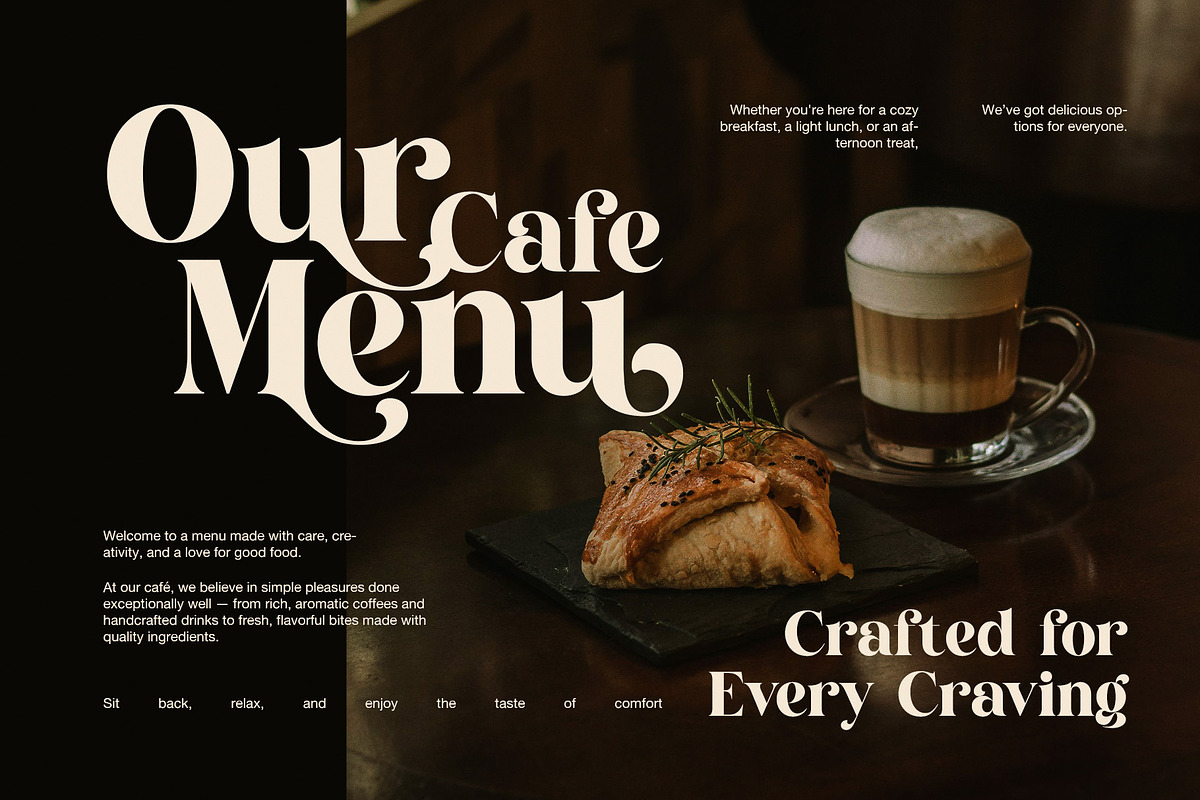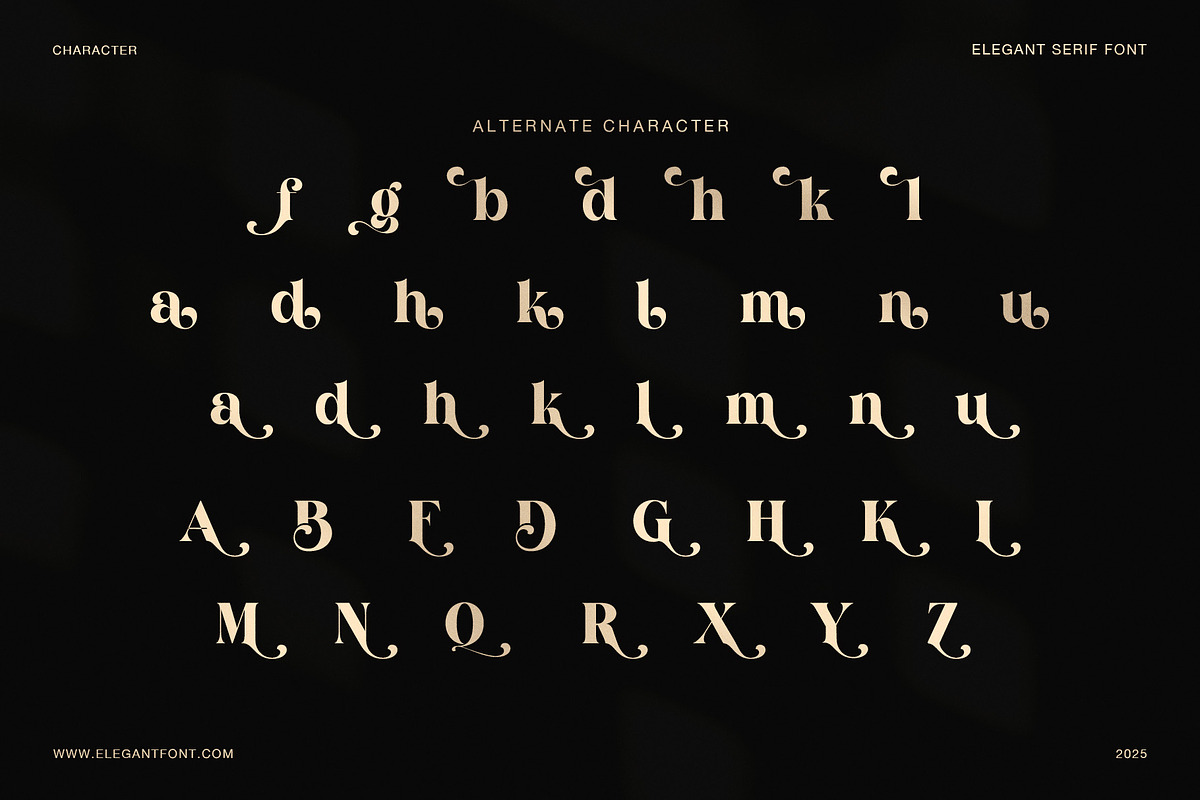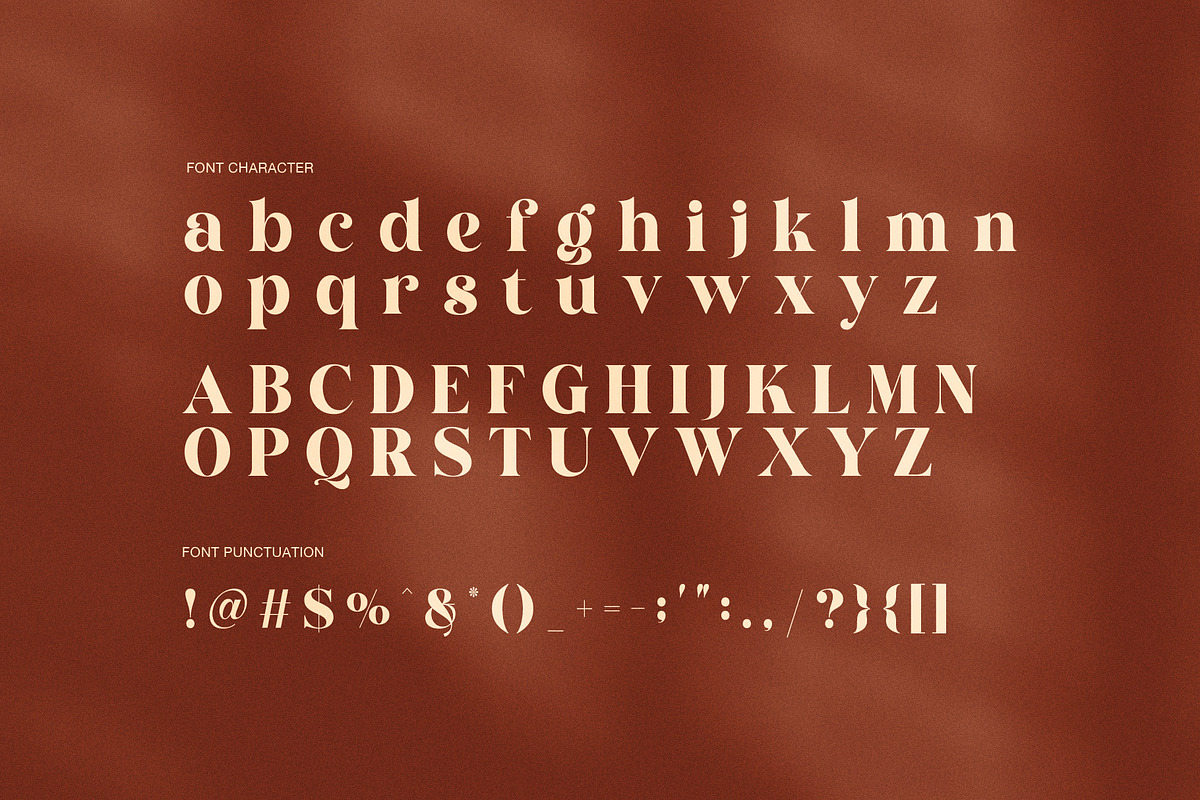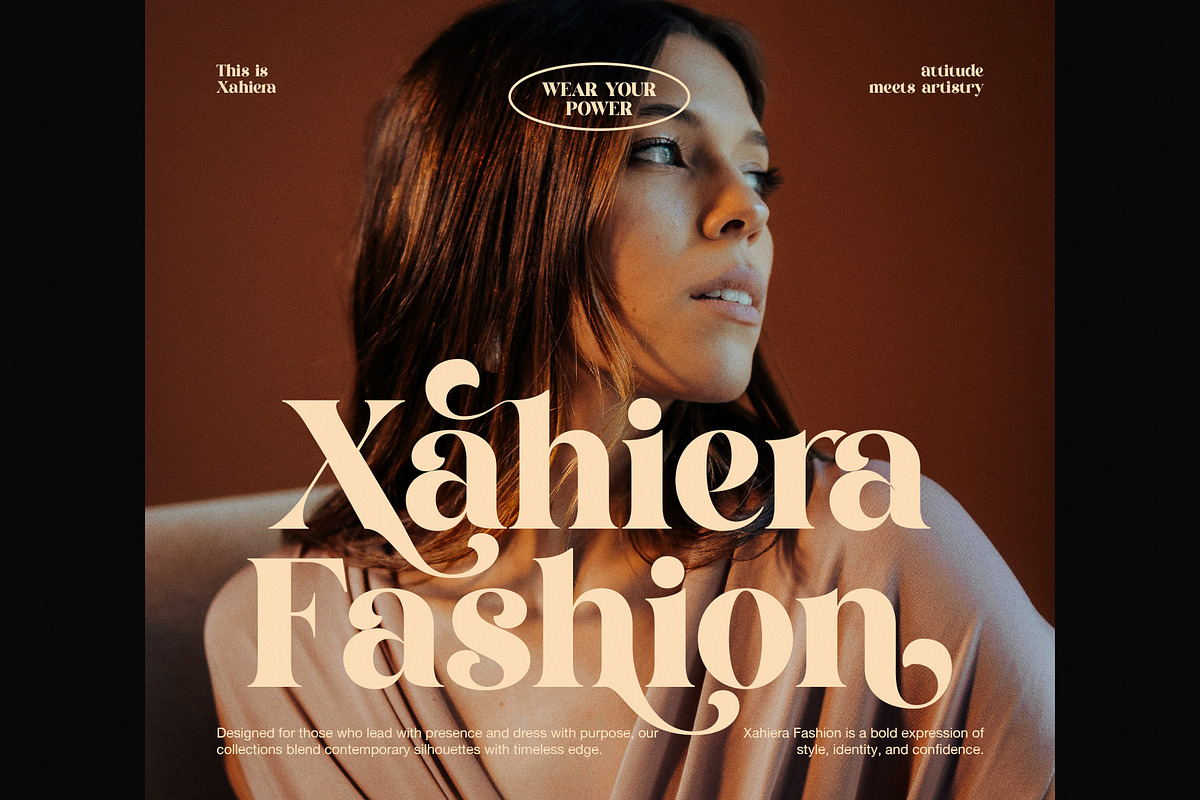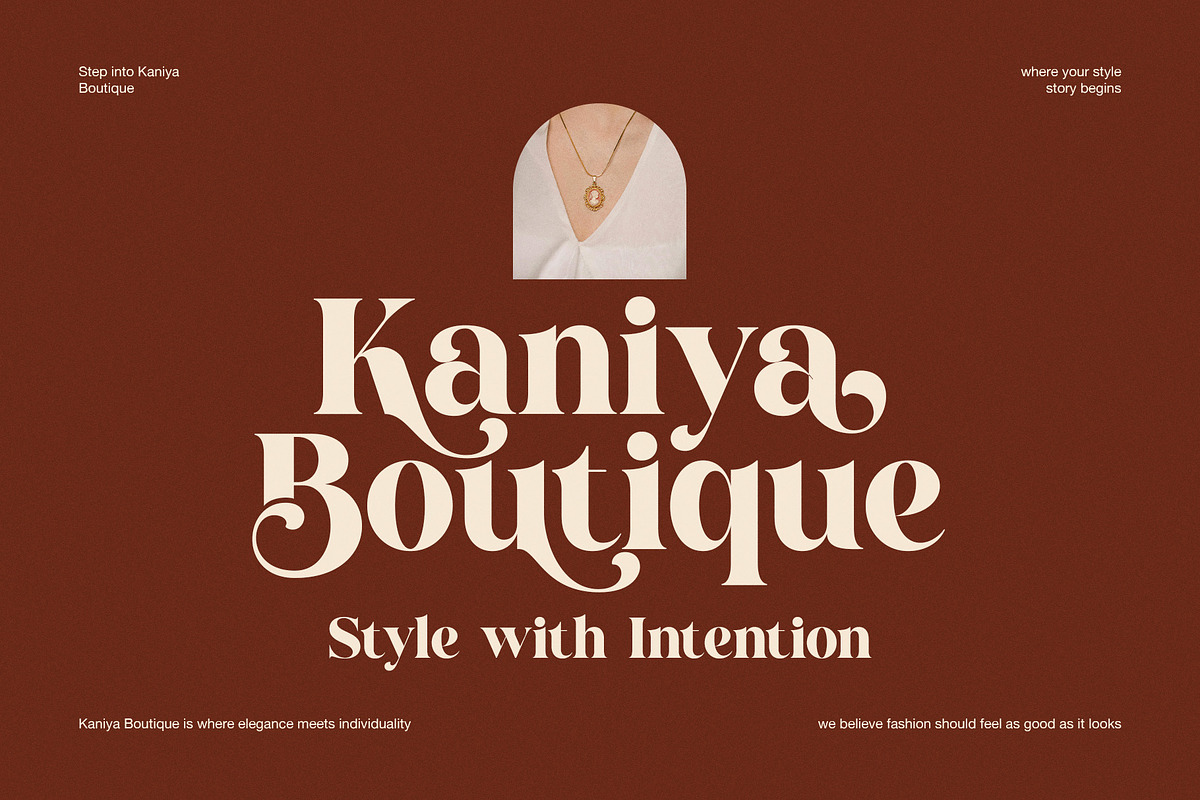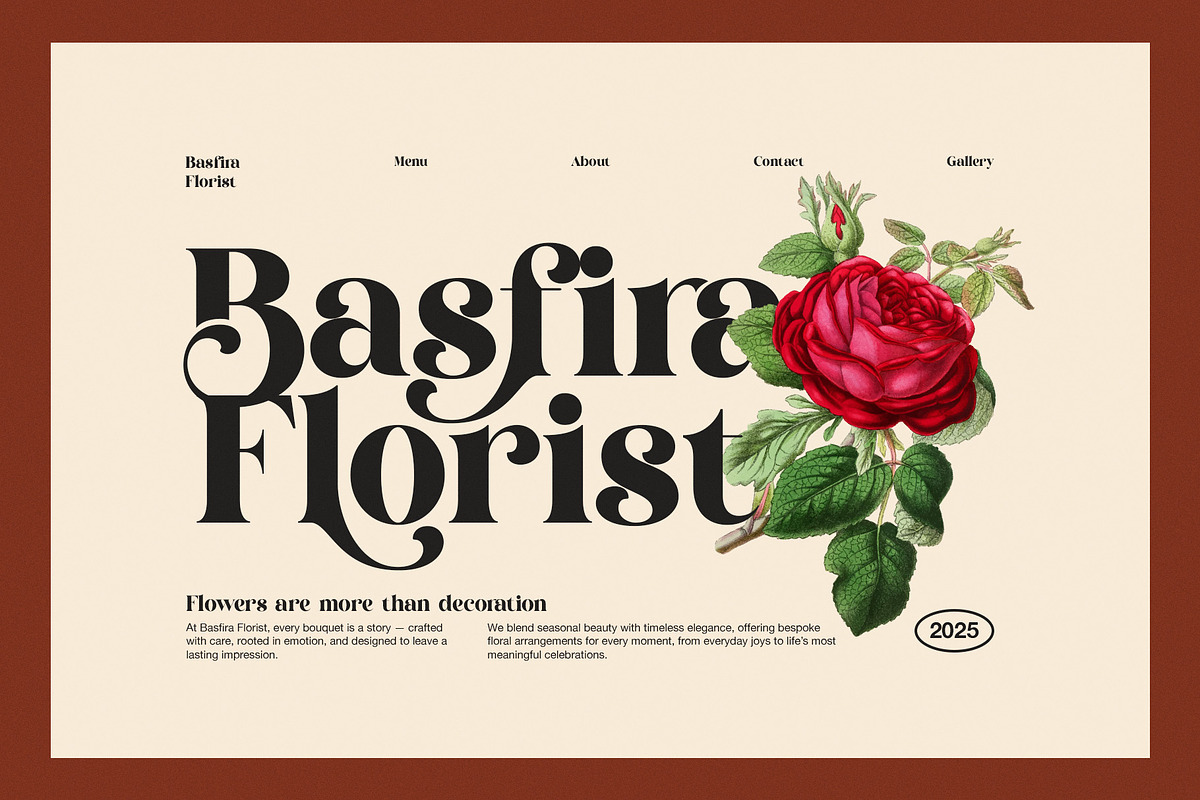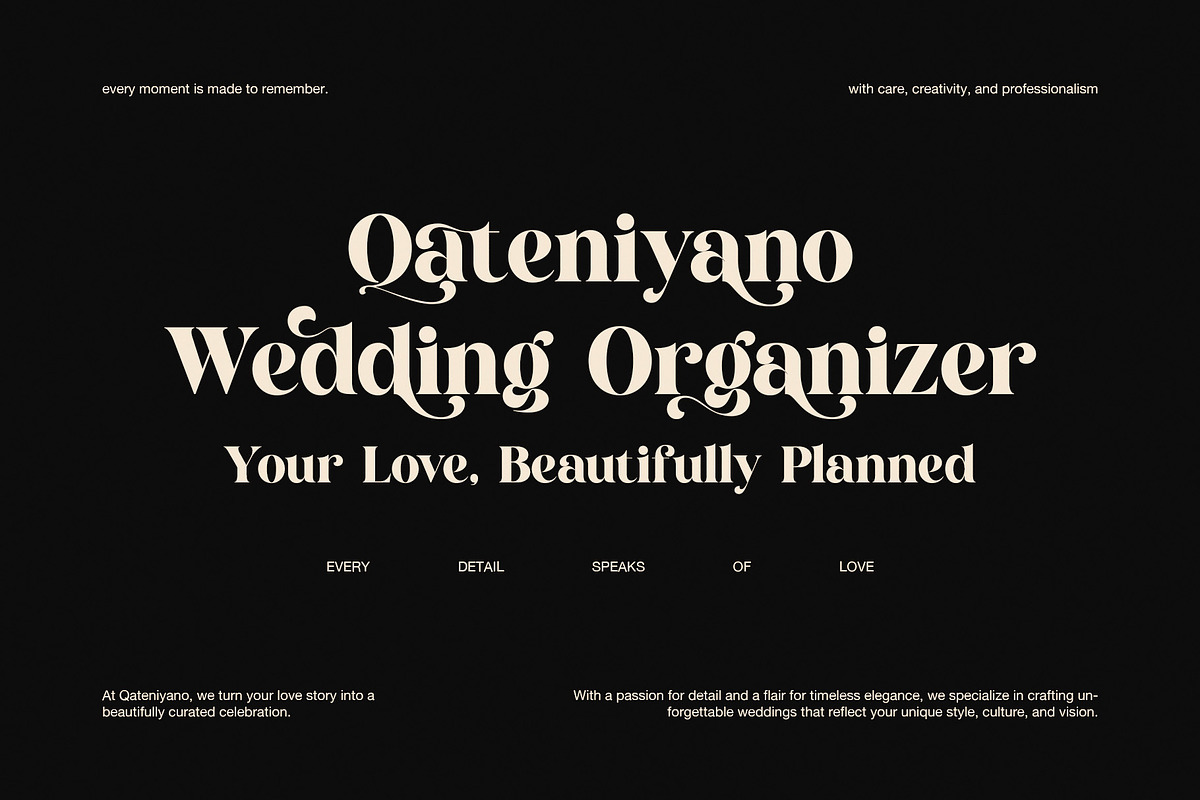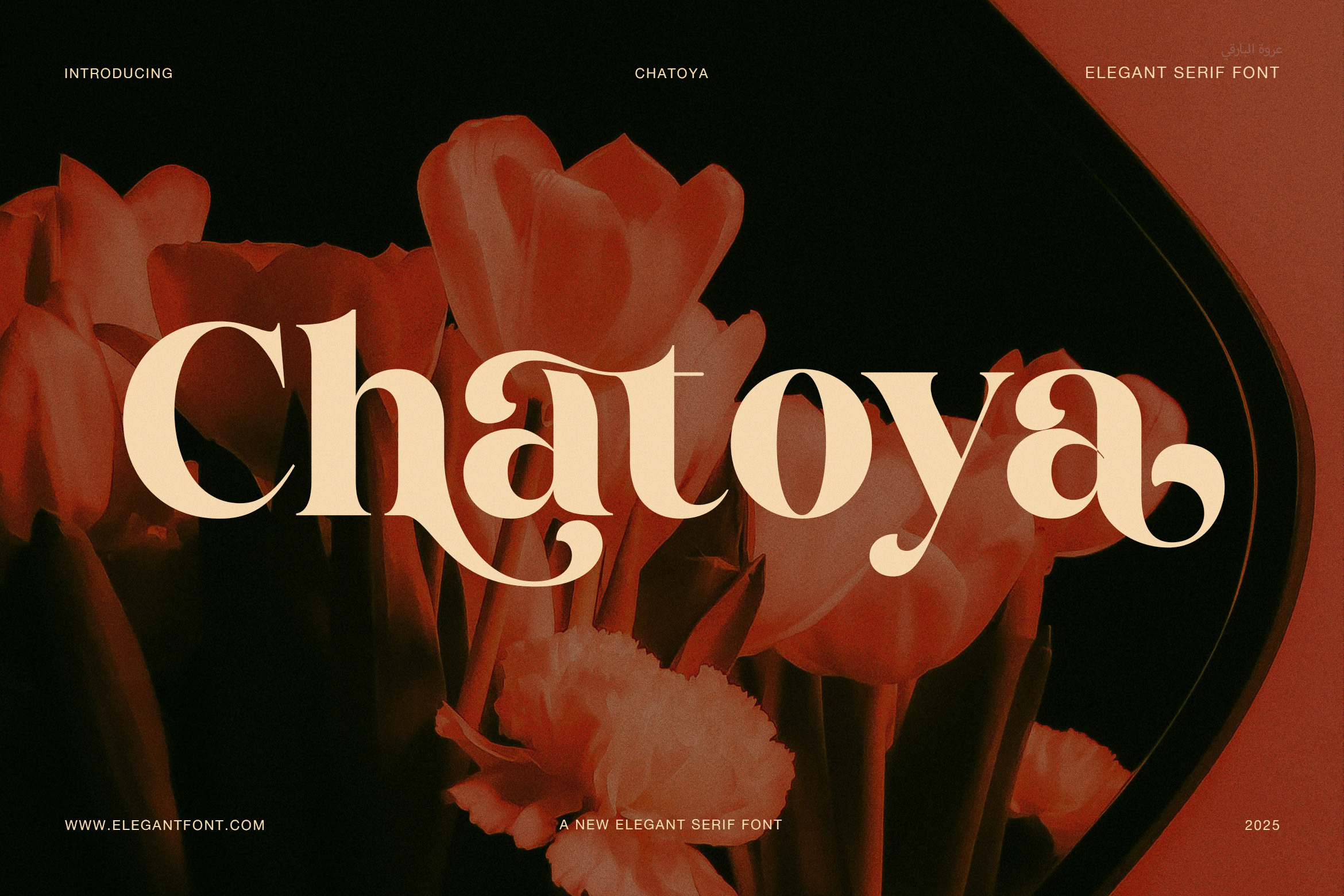
Chatoya Elegant Serif Display Font
Chatoya is an elegant serif display font created to express warmth, beauty, and refined character. Inspired by classic floral aesthetics and timeless editorial design, this font combines soft curves with confident serif construction. As a result, Chatoya delivers a graceful presence that feels both romantic and professional.
Each character in Chatoya is carefully crafted with smooth strokes and balanced contrast. The letterforms feel organic, flowing naturally across words and headlines. Because of this thoughtful design, Chatoya performs beautifully in large text while remaining clear and readable. Moreover, its structure helps guide the eye, making every composition feel calm and intentional.
Chatoya includes alternate characters that allow designers to create custom typography with ease. These alternates add subtle elegance and visual variation without overpowering the layout. In addition, decorative details bring charm and personality to branding projects, especially when paired with warm imagery and soft color palettes.
This elegant serif display font is ideal for floral branding, fashion editorials, wedding designs, and boutique identities. Whether used for a logo, website header, café menu, or packaging design, Chatoya communicates emotion and refinement. Furthermore, its timeless style makes it suitable for both modern and classic design directions.
Chatoya works perfectly across digital and print formats. Because of its balanced proportions, it maintains consistency on screens, posters, and high-quality printed materials. Designers can rely on this font to deliver a polished look in professional projects.
Elegant serif display style with soft curves
Decorative alternates for custom typography
Balanced contrast for strong headlines
Clean and professional letter structure
Timeless aesthetic with romantic character
Floral and wedding branding
Fashion and lifestyle editorials
Café and restaurant menus
Boutique logos and packaging
Website headers and promotional graphics
In conclusion, Chatoya is more than a decorative serif font. It is a refined typeface designed for designers who value elegance, emotion, and timeless visual storytelling.